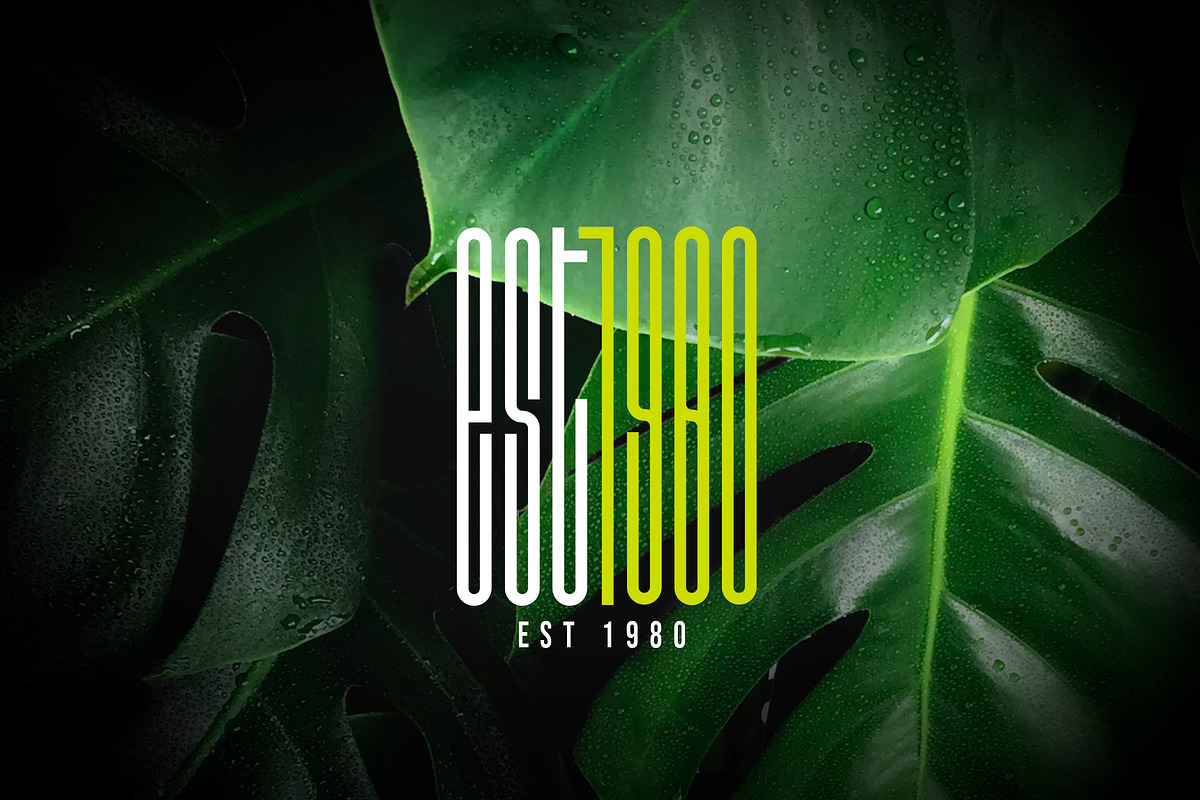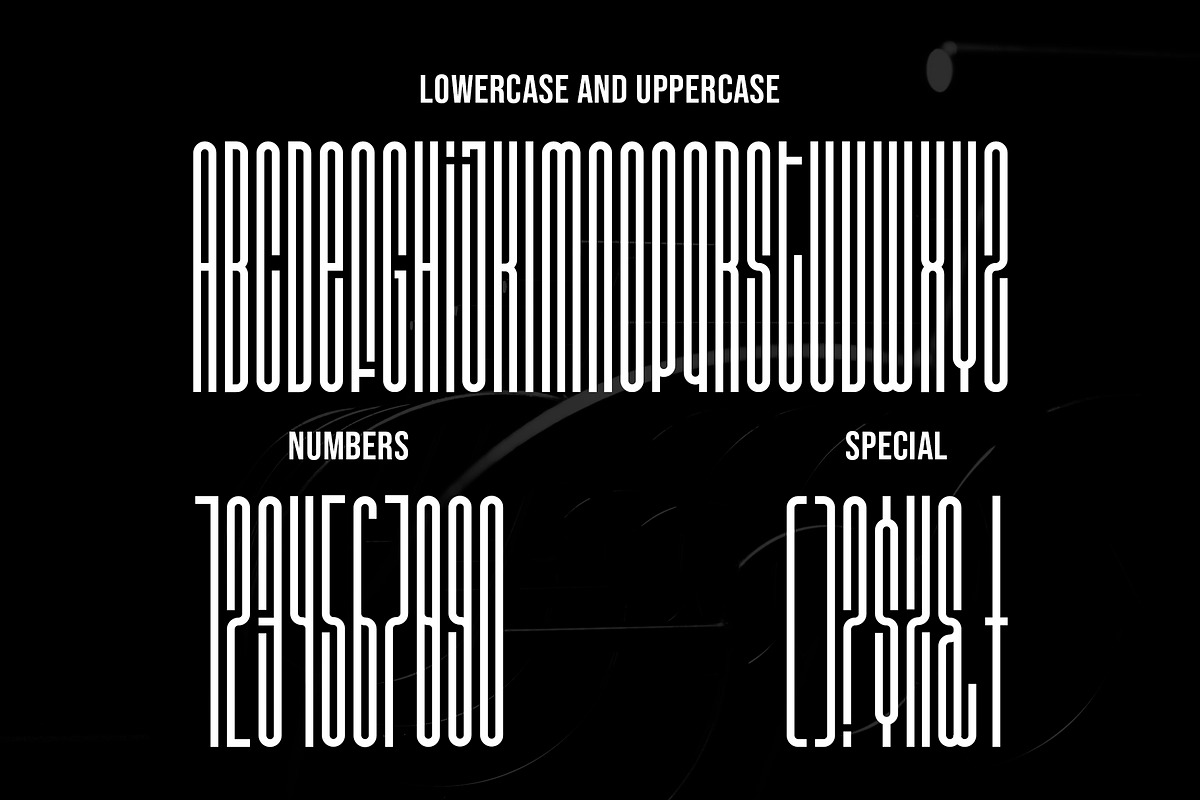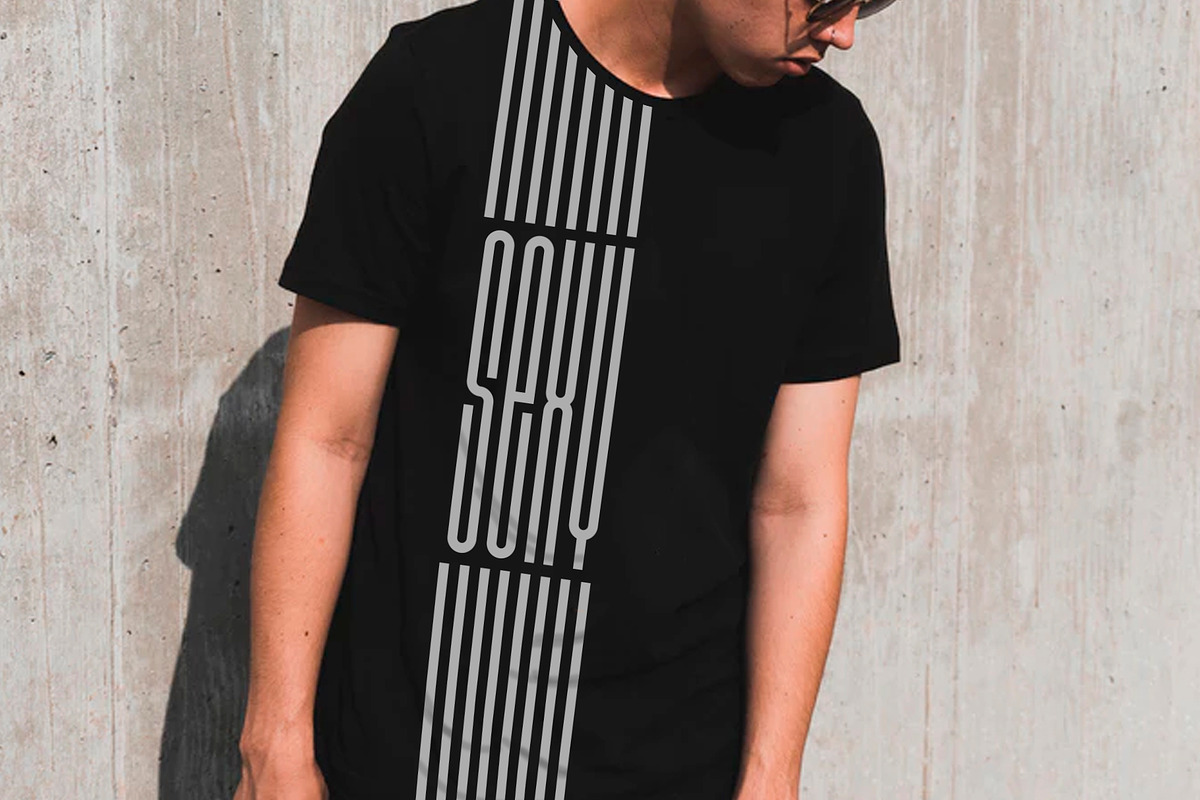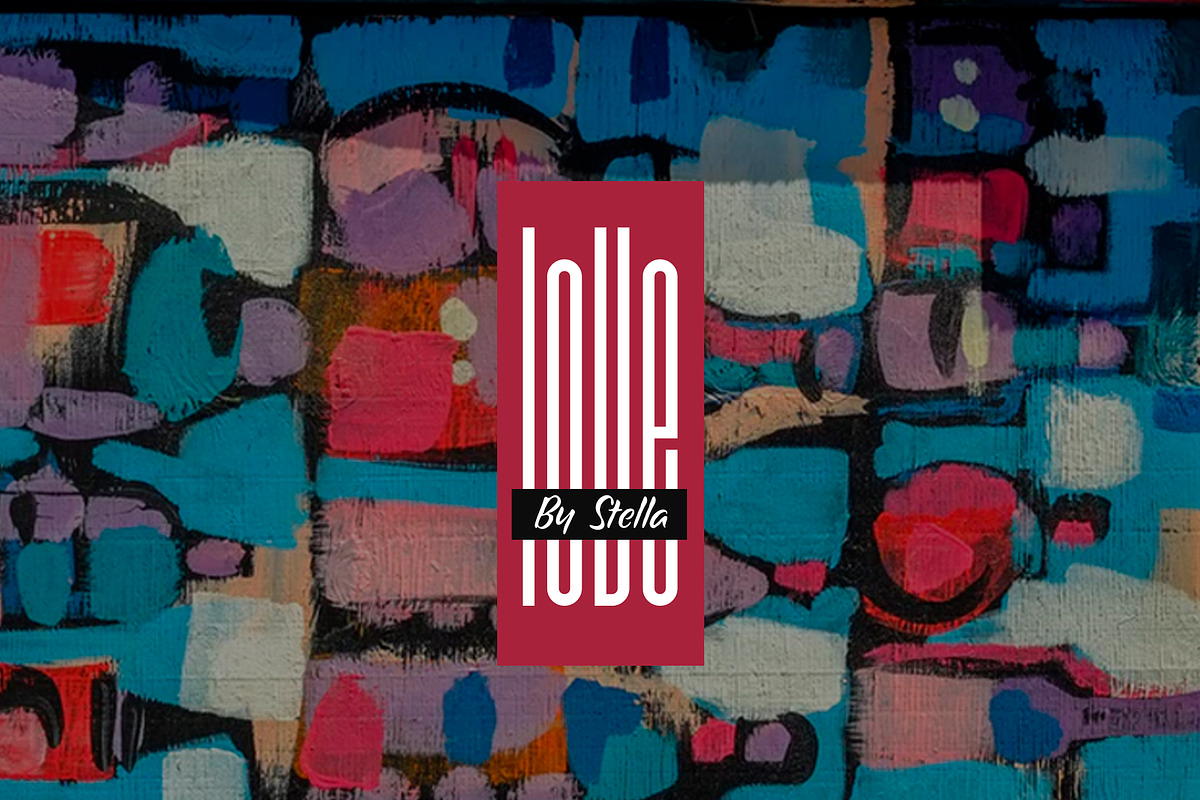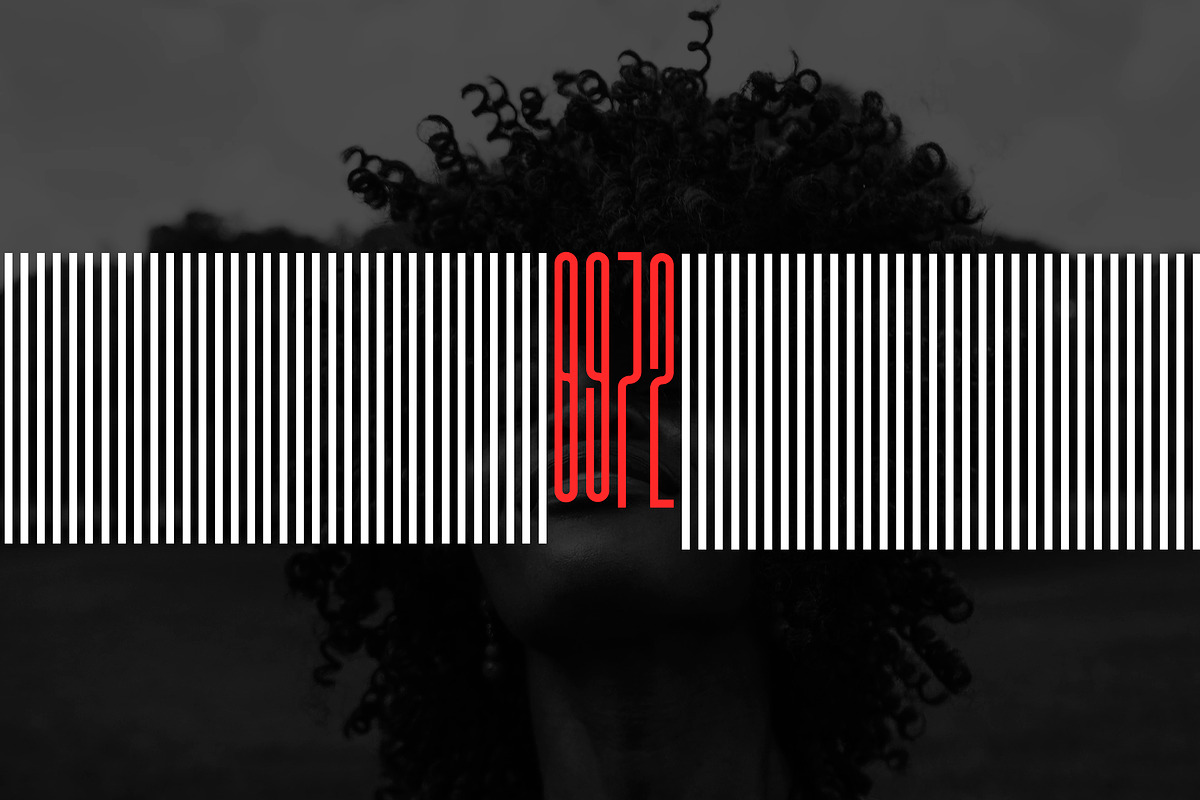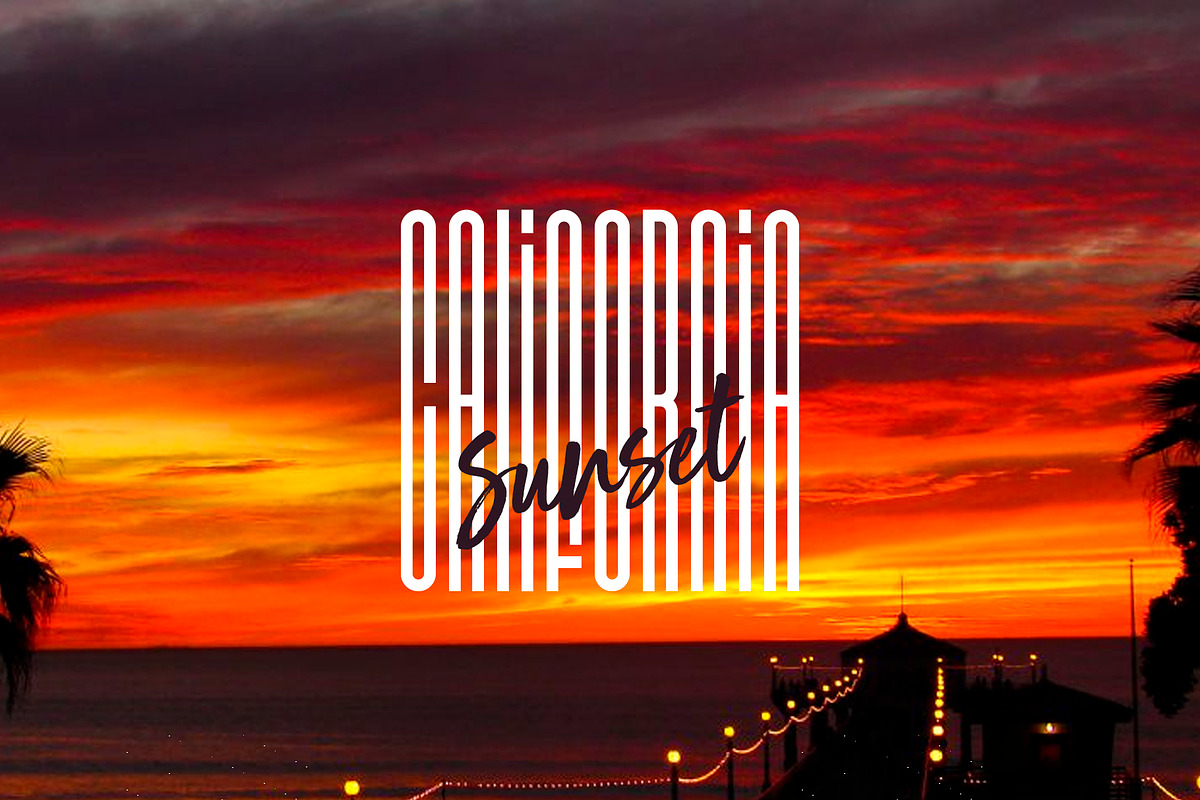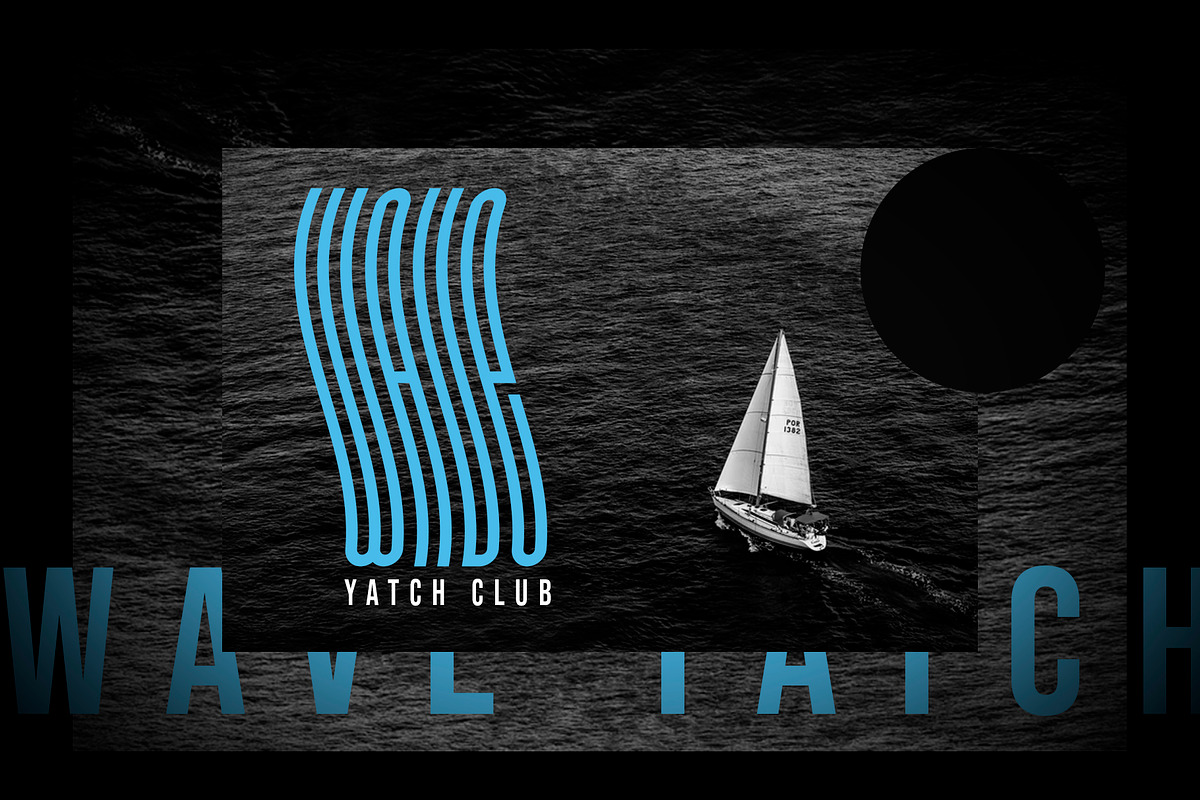
Southbar Condensed font
I love to work posters, packaging and lettering and i have this idea a long time ago, to create a poster or logo with a barcode concept but this idea turned in a font! Now i give you several ideas to used this font and get amazing results without work a lot!
Why Southbar Condensed font is worth a look
Southbar Condensed font by Graphicboom fits naturally into Branding, posters, packaging, typography.